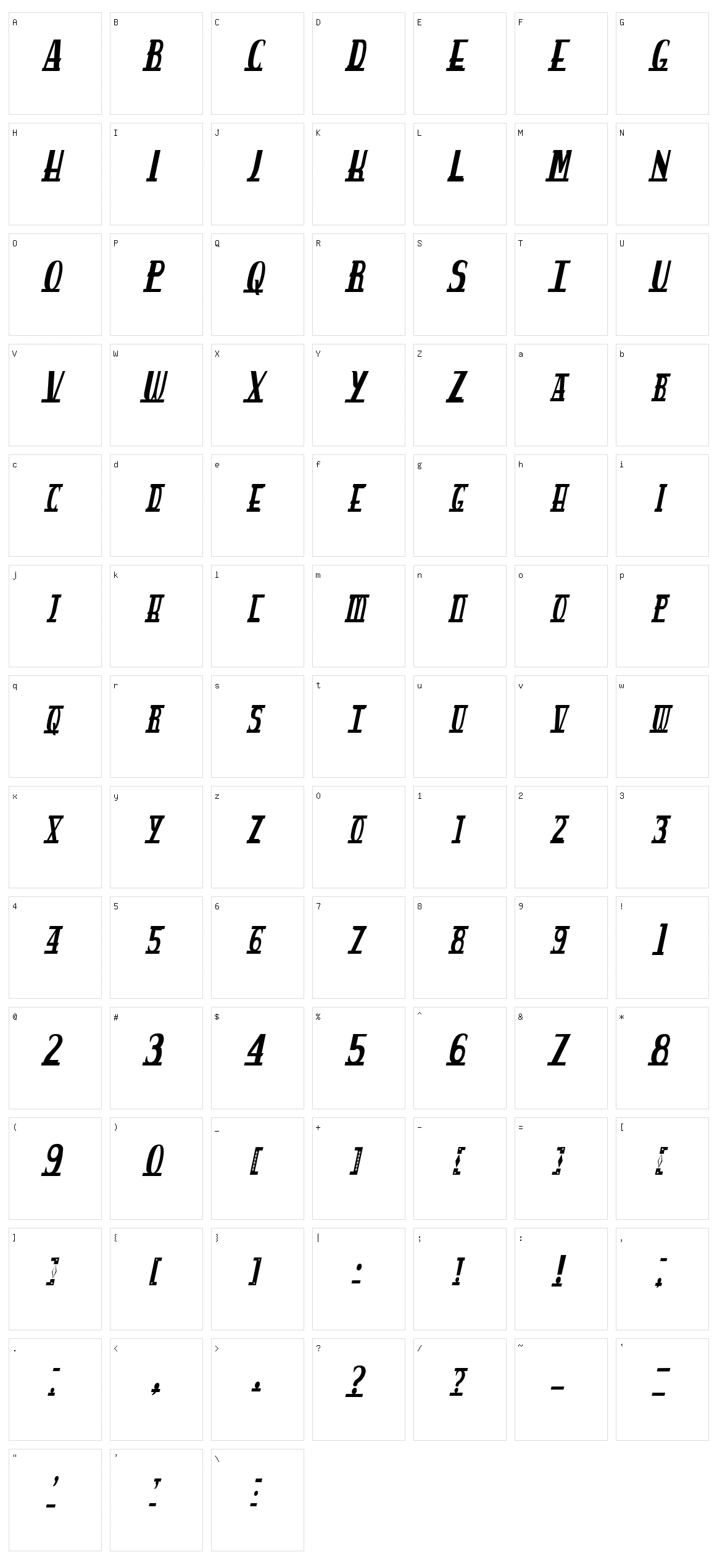
Spankys Bungalow
Designed by: Emerald City Fontwerks
Category: Western
a family of marquee decos...
dedicated to their namesake,
a kindly old noodler from eagle grove, iowa,
who works the projector down at the rialto
most weekday afternoons....
"spanky's bungalow,"
"spanky's bungalow blanco,"
and their "italico" compadres
handcrafted in the emerald city
by steven j. lundeen